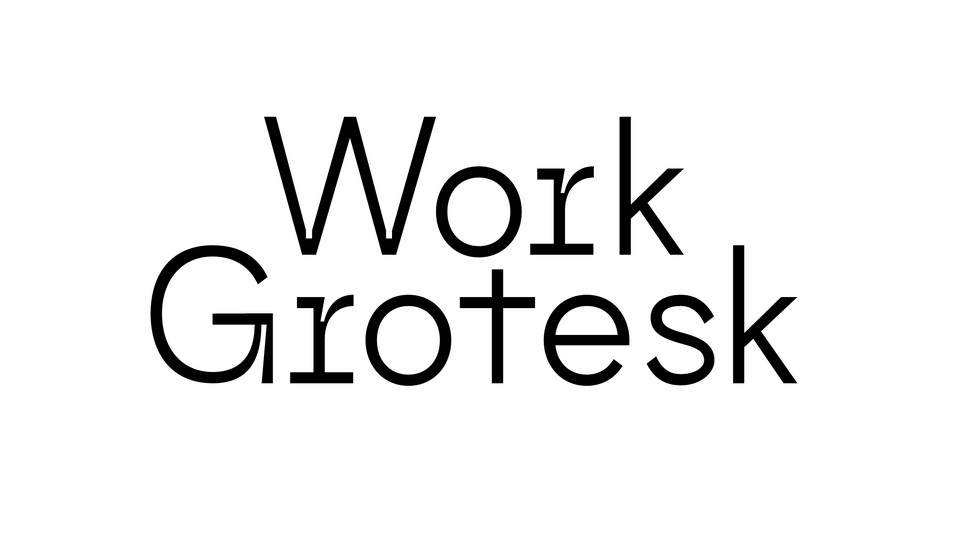
Download Work Grotesk font, a fancy and catchy sans serif typeface for maintaining a sophisticated mood in design. Work Grotesk is ideal for advertising, editorial and display use.
Designer: Ivan Tsanko